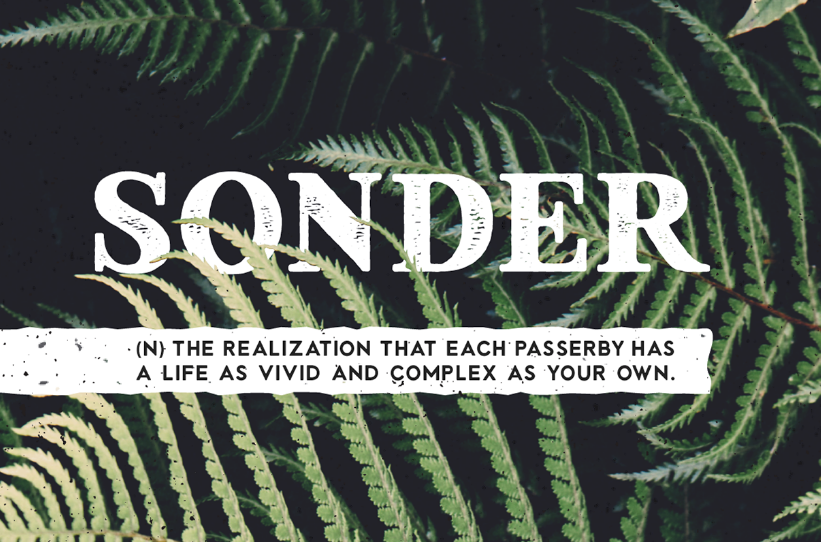
Sonder Font Family
Sonder is a family of font display, designed by Andrew Herndon. Sonder is an exploration on vintage lettering. Sonder uses rough edges and inked center pieces to help the inner adventurer create bold headings and logotype.